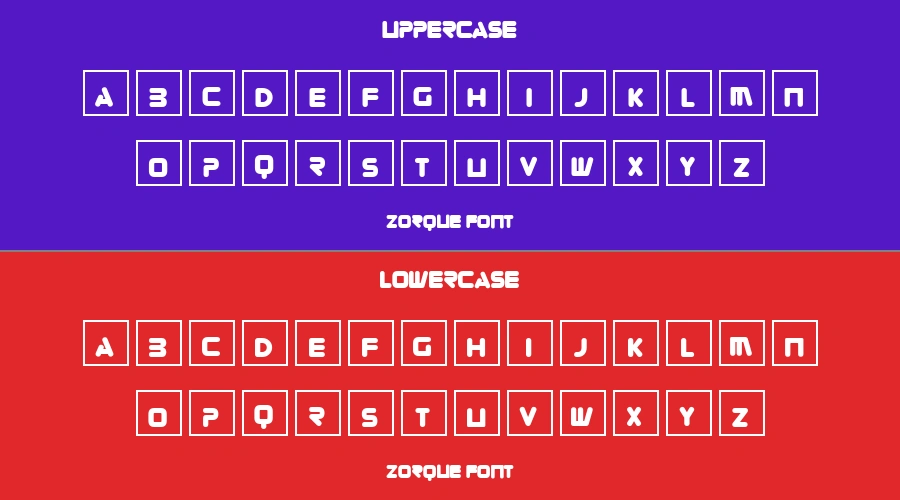
About Zorque Font
Zorque Font embodies typographic excellence through its masterful combination of rhythmic patterns and page color. Created for merchandise graphics, this typeface delivers exceptional durability and artistic merit across all applications. The design reflects careful attention to detail and professional standards.
Advanced capabilities include distinctive balanced proportions and versatile contextual alternates, giving designers creative control. When used in editorial spreads, Zorque Font exhibits remarkable language switching. The harmonious balance between serif length and artistic merit sets this typeface apart.